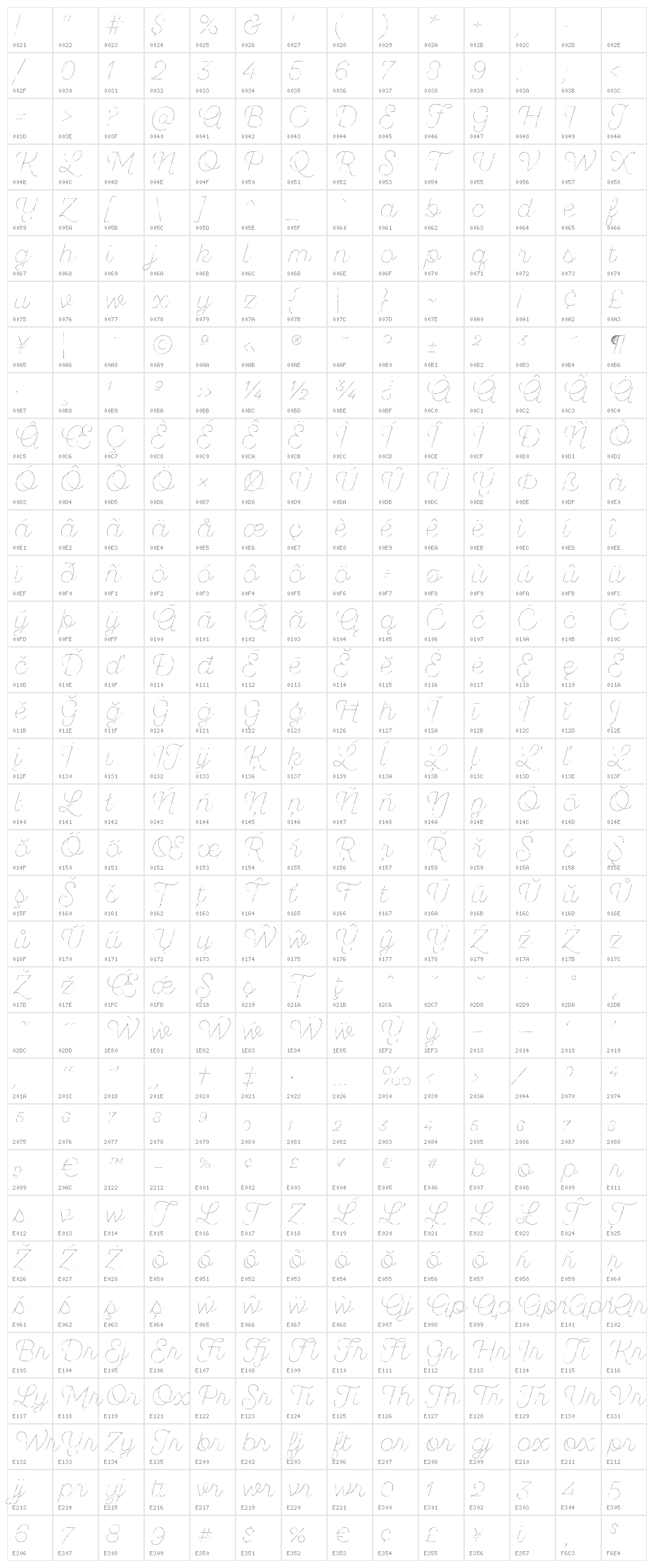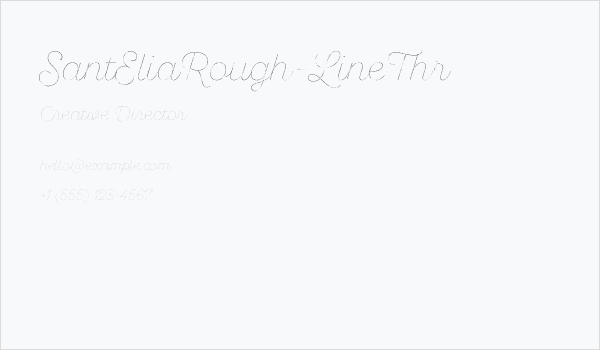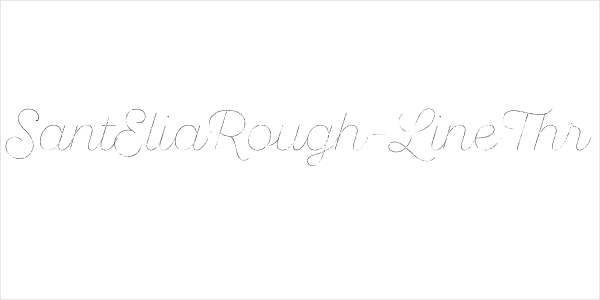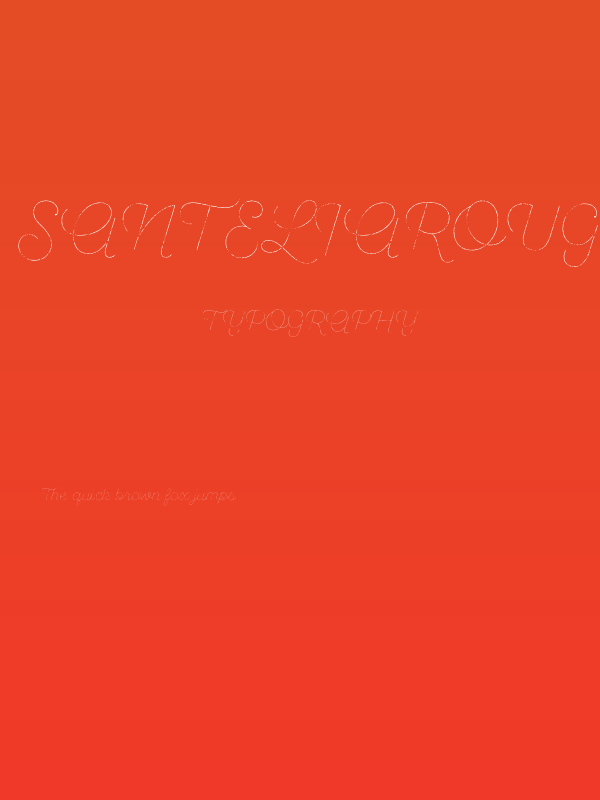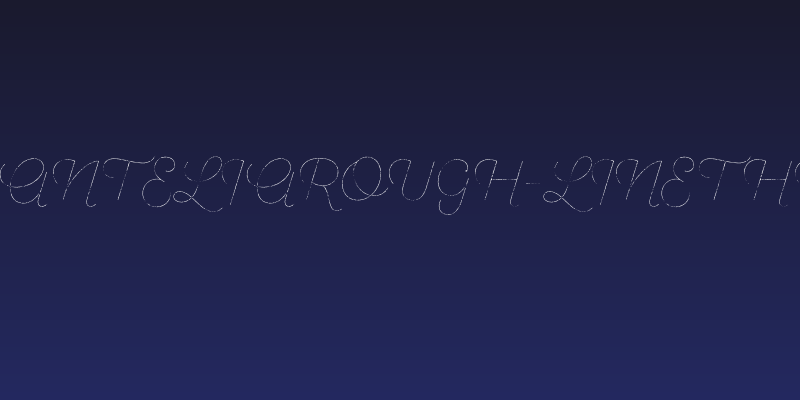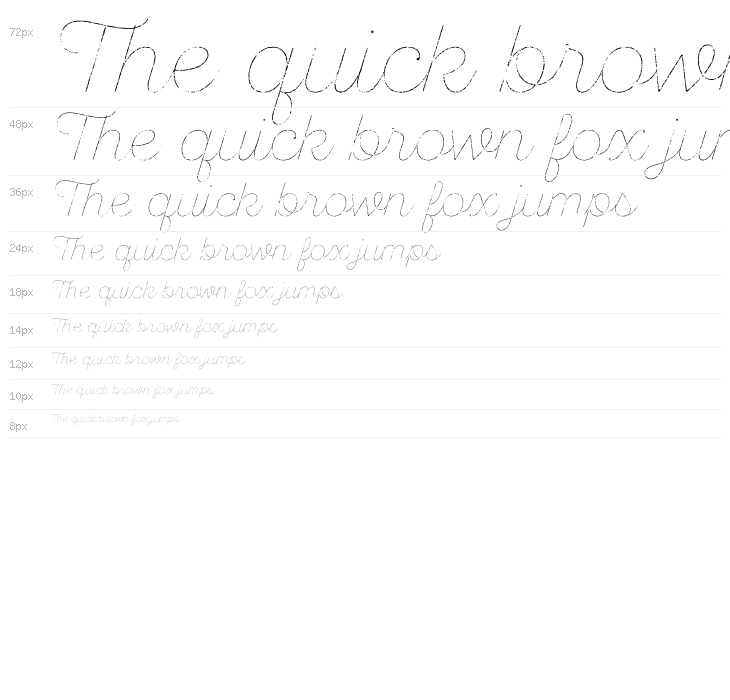
SantEliaRough-LineThr Font
SantEliaRough-LineThr Description
This font features a unique and artistic design with a rough, hand-drawn appearance. The characters are connected in a cursive style, giving it a fluid and dynamic look. The lines are thin and slightly irregular, adding to the handcrafted feel. The uppercase and lowercase letters maintain a consistent style, with elegant curves and loops. Numbers and special characters are also included, matching the overall aesthetic. This font is ideal for projects that require a personal touch or an artistic flair.